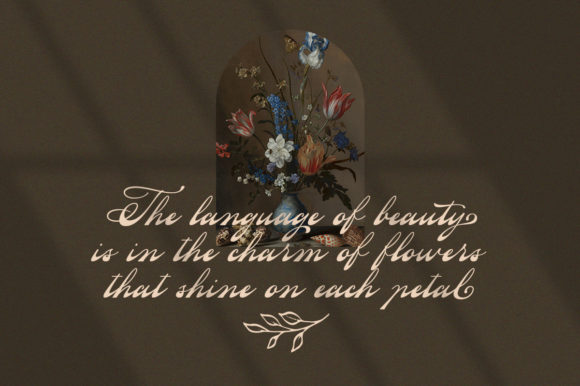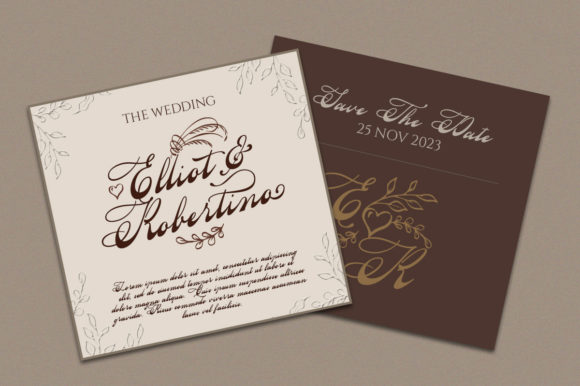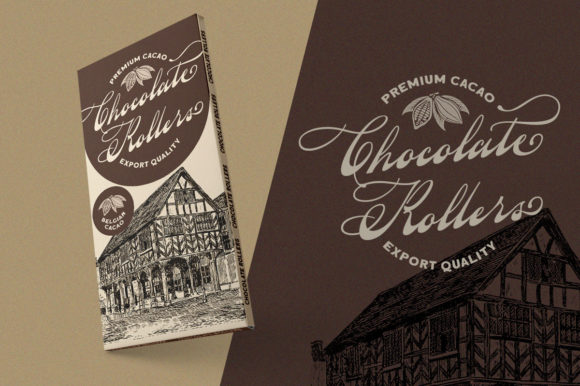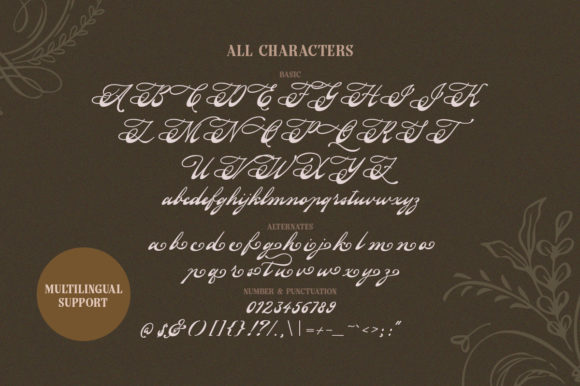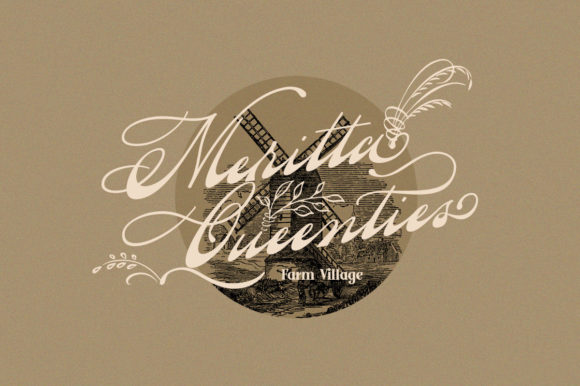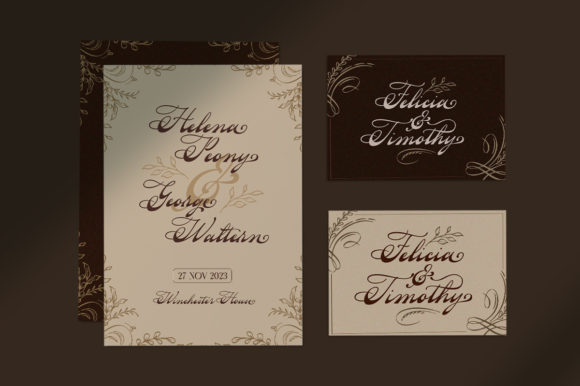
About Yesternight Font
Yesternight is an elegant script font with a retro atmosphere and impeccable form. Not too thin and not too thick, balanced and varied, this font was designed to enhance the beauty of your projects.